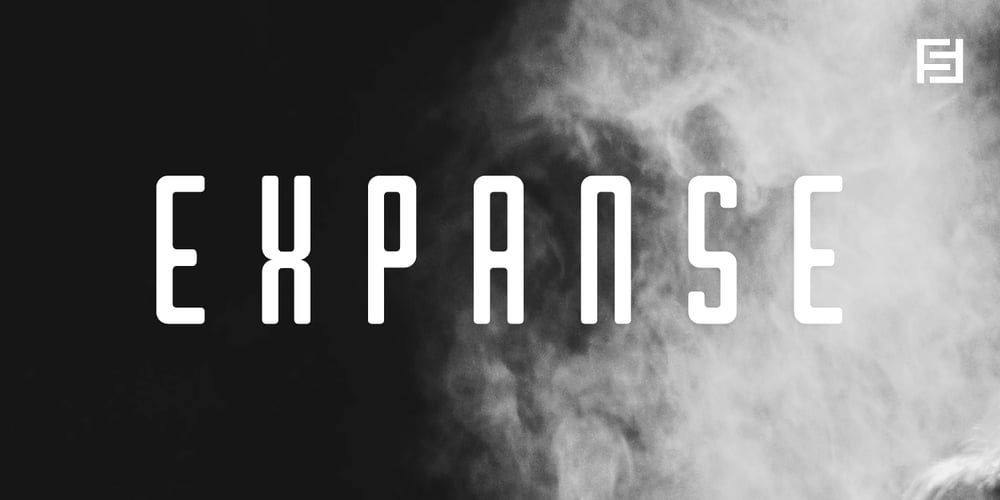
Expanse Nuvo
Expanse Nuvo font
Expanse Nuvo Font Family was designed by Jean Johnson and published by Designova. Expanse Nuvo contains 4 styles and family package options. Expanse is a unique display typeface perfect for headlines, big text, branding, logotypes & display usage. This all-caps typeface can be an excellent choice for creating outstanding logos, promotional content, and marketing graphics that can bring uniqueness and freshness at its level best.The typeface will be perfect for creating unique monograms, logos, and identities with these combinations. Please see the examples shown above to get an idea of the capability of this typeface.The typeface comes with Extended Latin character sets including Western European, Central European, and South-Eastern European character sets (a total of 252 glyphs).Being a headline-specific typeface, Expanse comes with two weights (Regular and Bold) and italic equivalents.